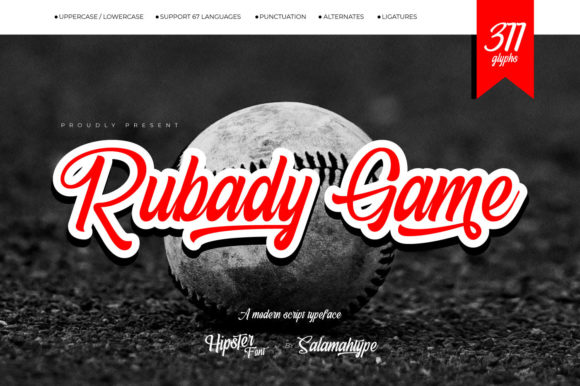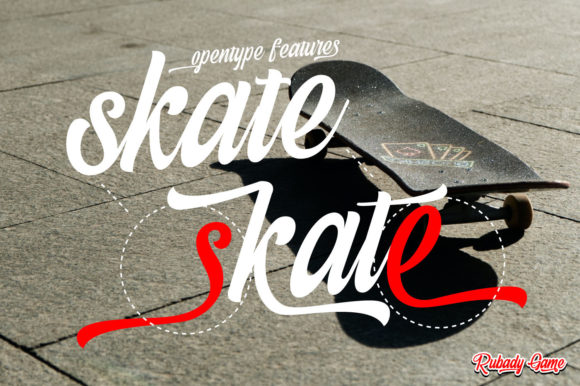
About Rubady Game Font
Rubady Game is a script font that is bold and sleek but looks more unique with lots of alternate options in it. This font is perfect for branding projects, logos, social media posts, advertisements, product packaging, product designs, label, photography, watermark and so much more. Rubady Game is PUA encoded which means you can access all of the glyphs and swashes with ease!